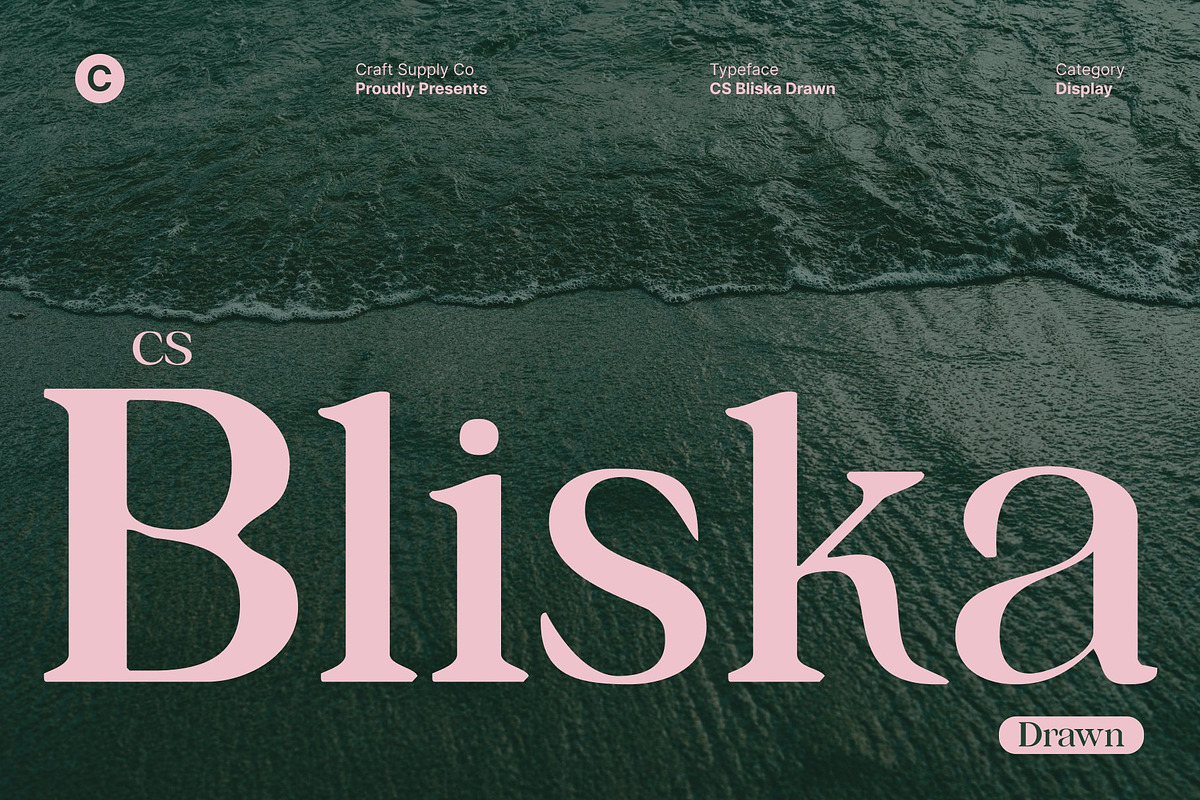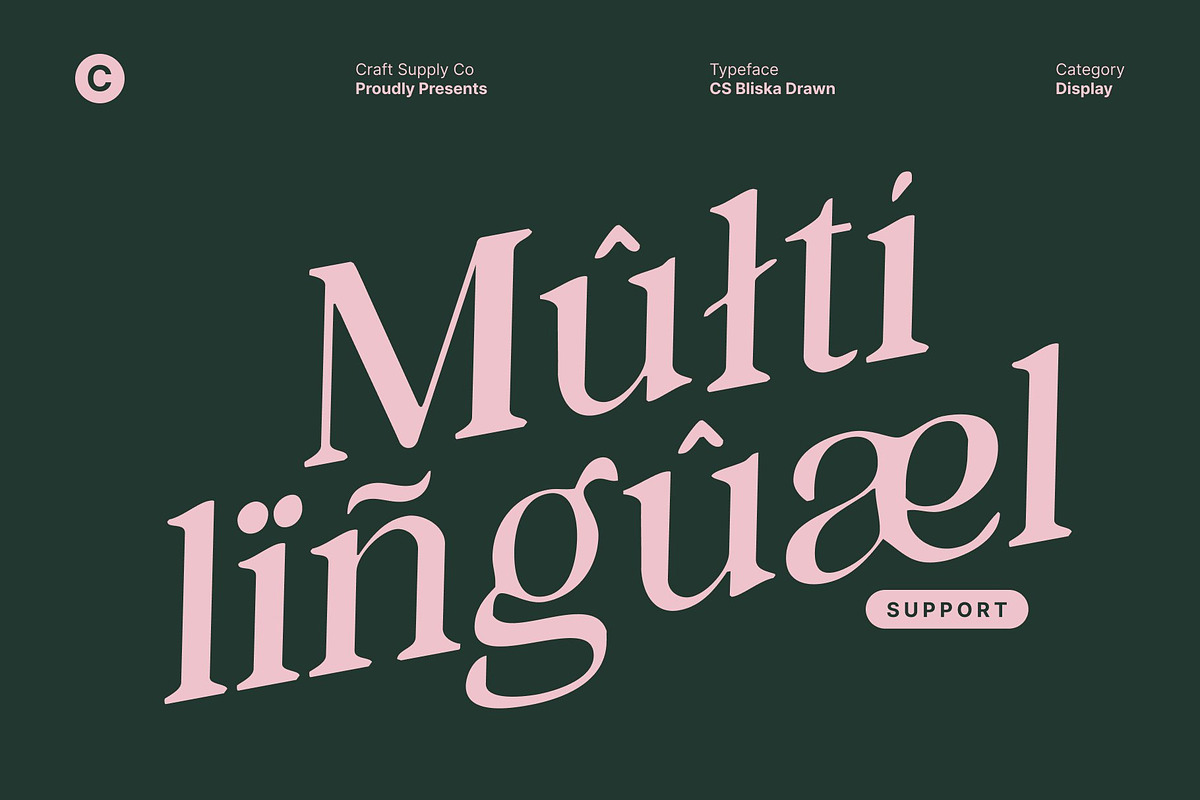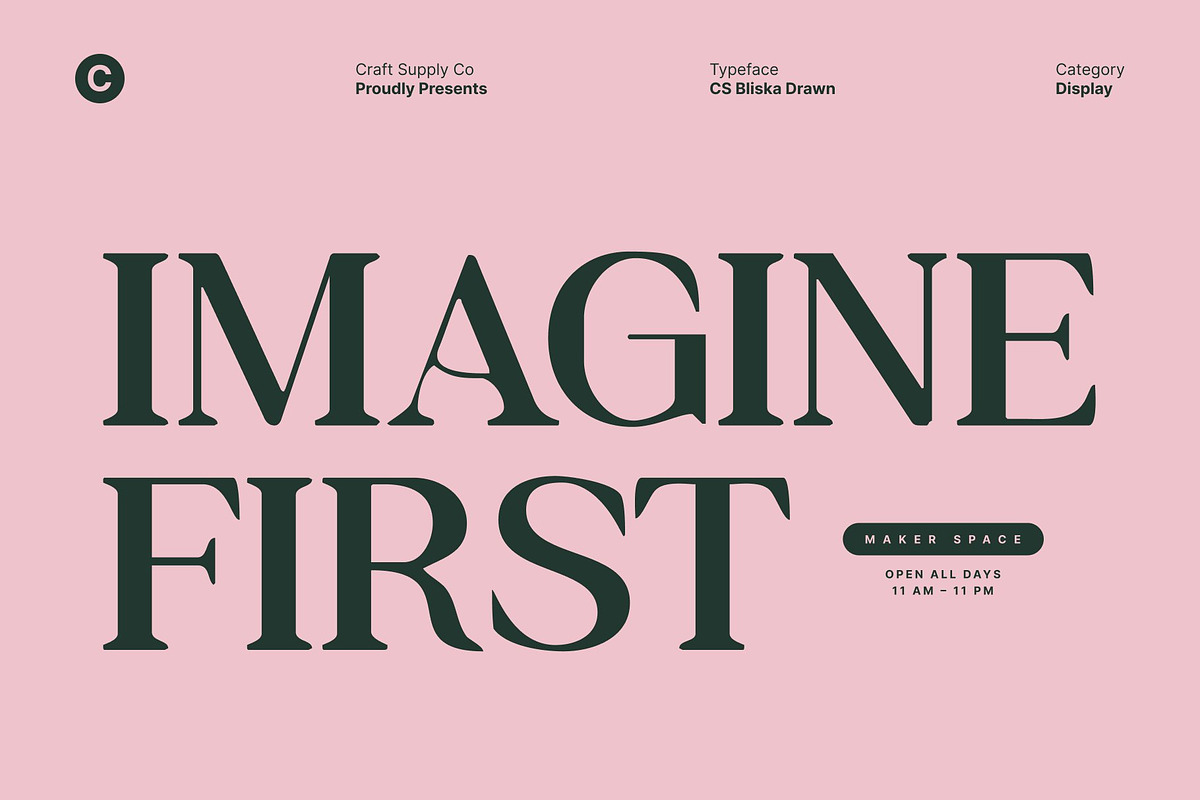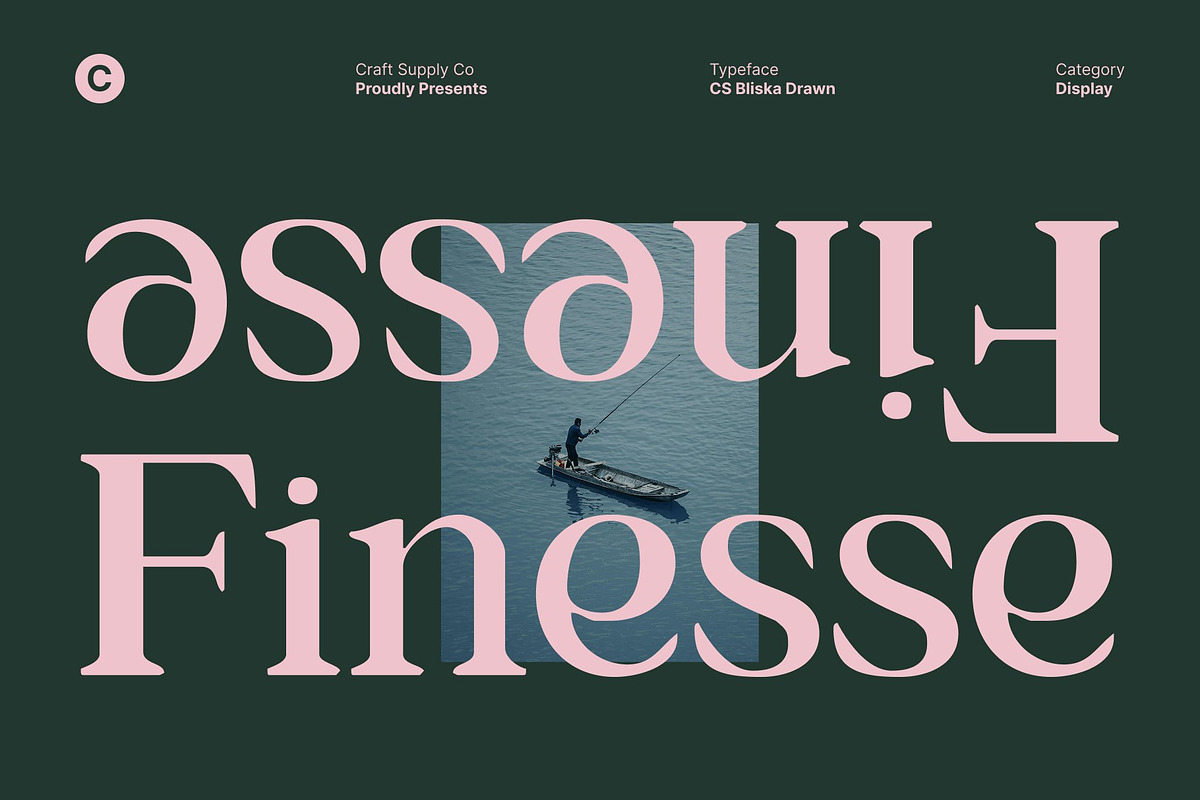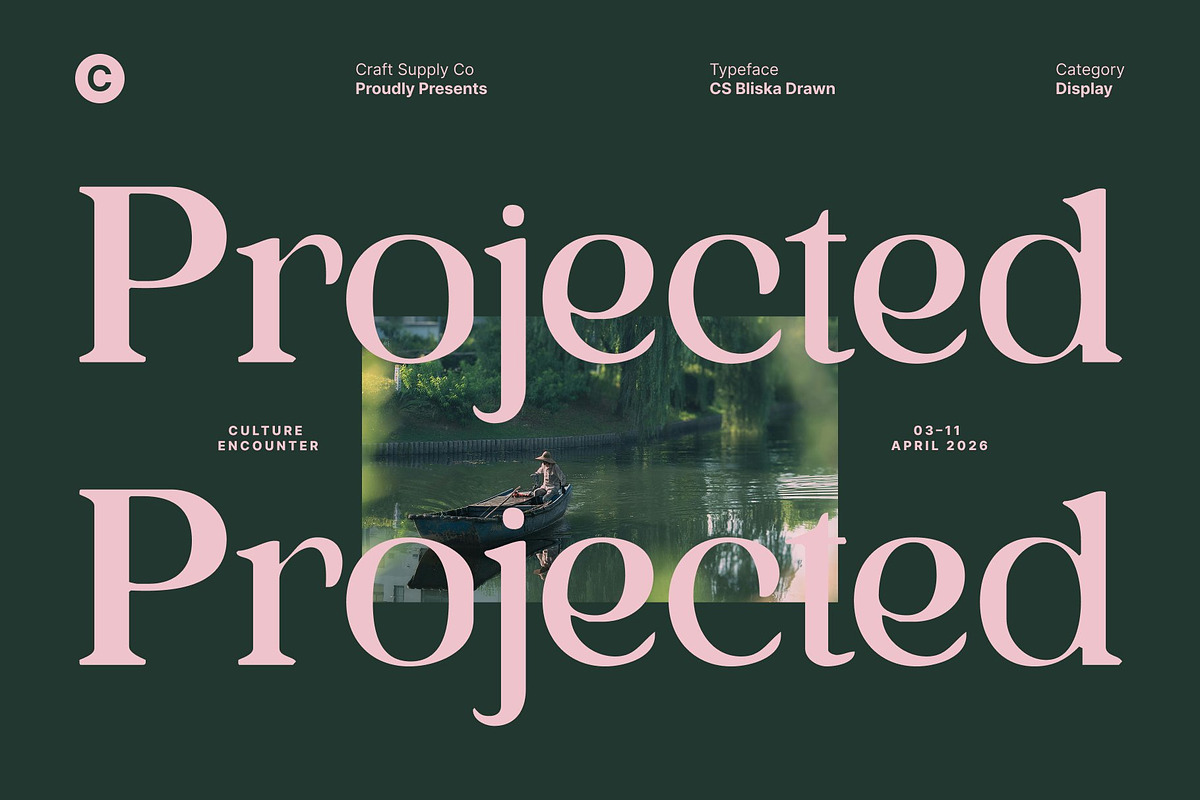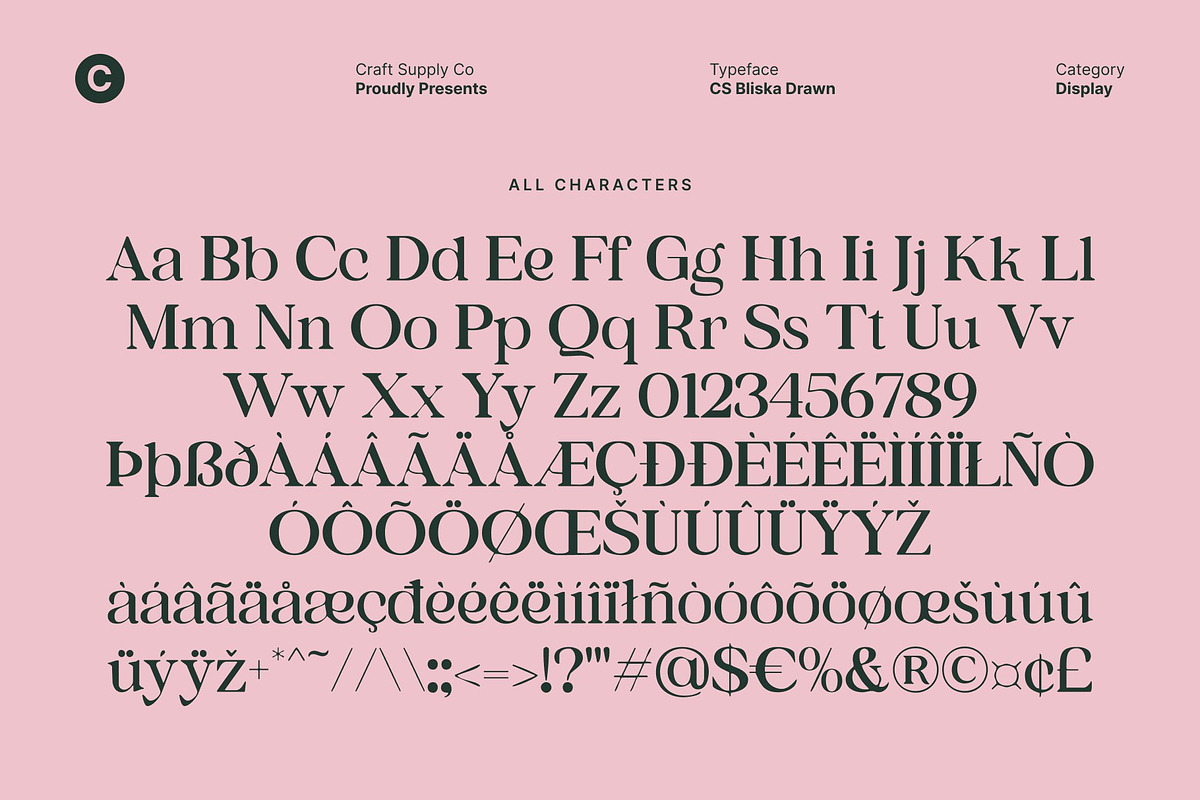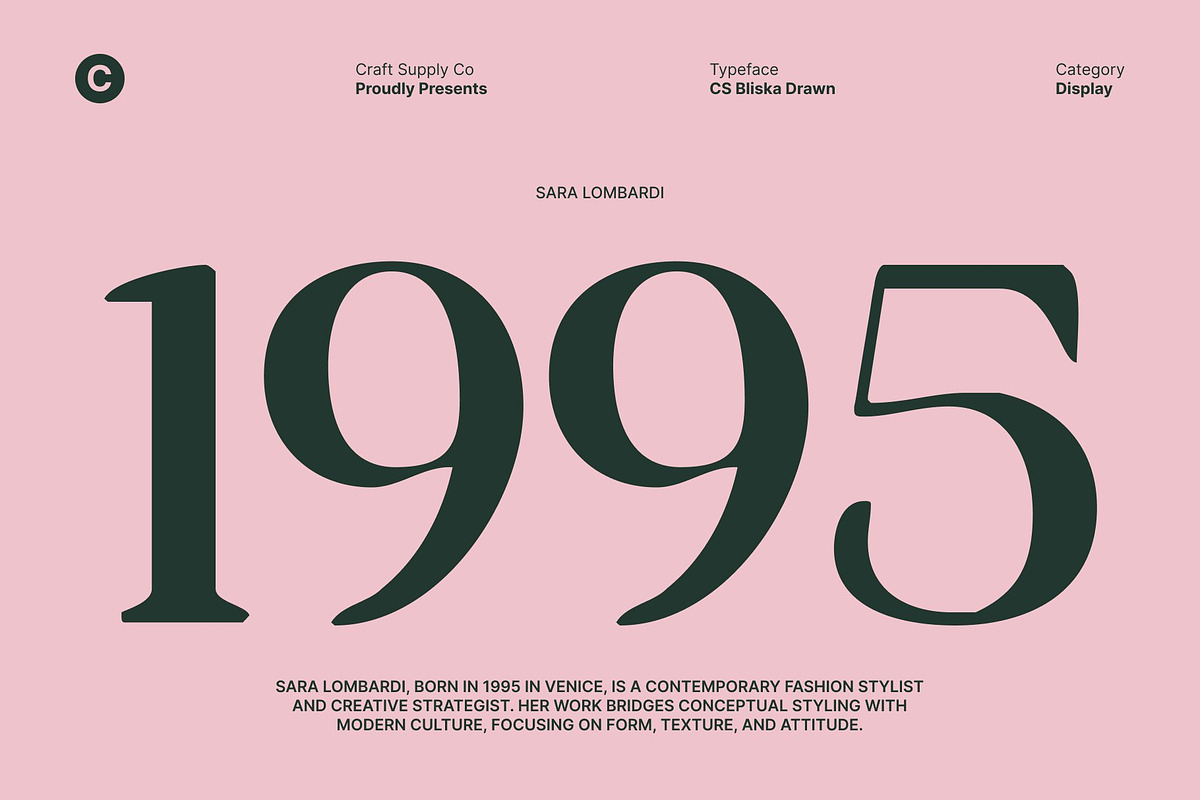
CS Bliska Drawn
CS Bliska Drawn – Elegant Serif Font with Feminine Grace
Refined Elegance with Timeless Beauty This is an elegant serif font created to express refinement, calmness, and timeless beauty. Its well-balanced proportions and graceful letterforms create a composed and sophisticated appearance. Enhanced with a hand-drawn effect, the font gains a subtle organic texture that adds warmth and character while preserving its polished, luxurious feel.
Soft Feminine Character with Natural Charm Defined by gentle curves and delicate serif details, this font radiates a feminine and classy personality. The drawn texture softens the structure, giving each character a natural, human touch. This blend of elegance and handcrafted imperfection creates a calm visual rhythm that feels graceful, confident, and emotionally engaging.
Perfect for Fashion, Beauty, and Editorial Design This font is especially suited for fashion branding, beauty products, and refined lifestyle visuals. It elevates magazine layouts, editorial headlines, and brand identities with effortless sophistication. The drawn effect adds uniqueness, making designs feel more personal and expressive without losing clarity or elegance.
Versatile for Branding, Logos, and Luxury Visuals Whether used for luxury branding, logos, packaging, or editorial systems, this font delivers a memorable and polished typographic voice. Its elegant serif foundation combined with a natural drawn texture makes it ideal for designers seeking a font that feels feminine, calm, and beautifully timeless across creative projects.